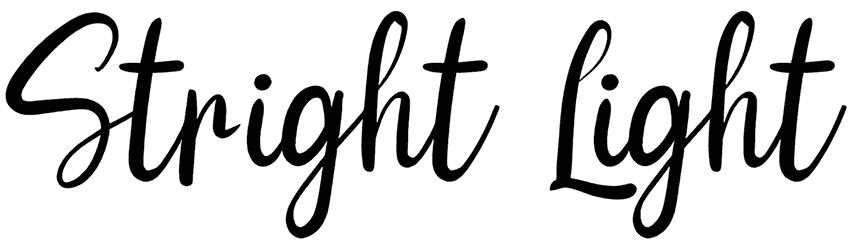
Stright Light Font
Look! A kind of contrast in designing the calligraphy font is observable; a handwritten font was made owing to modern patterns, and also according to today’s trends and requirements. The Stright Light font works hand in hand with promotional events, Photoshop, Illustrator, and creative vintage work since it has the potential to convey a sense of creativity and curliness.